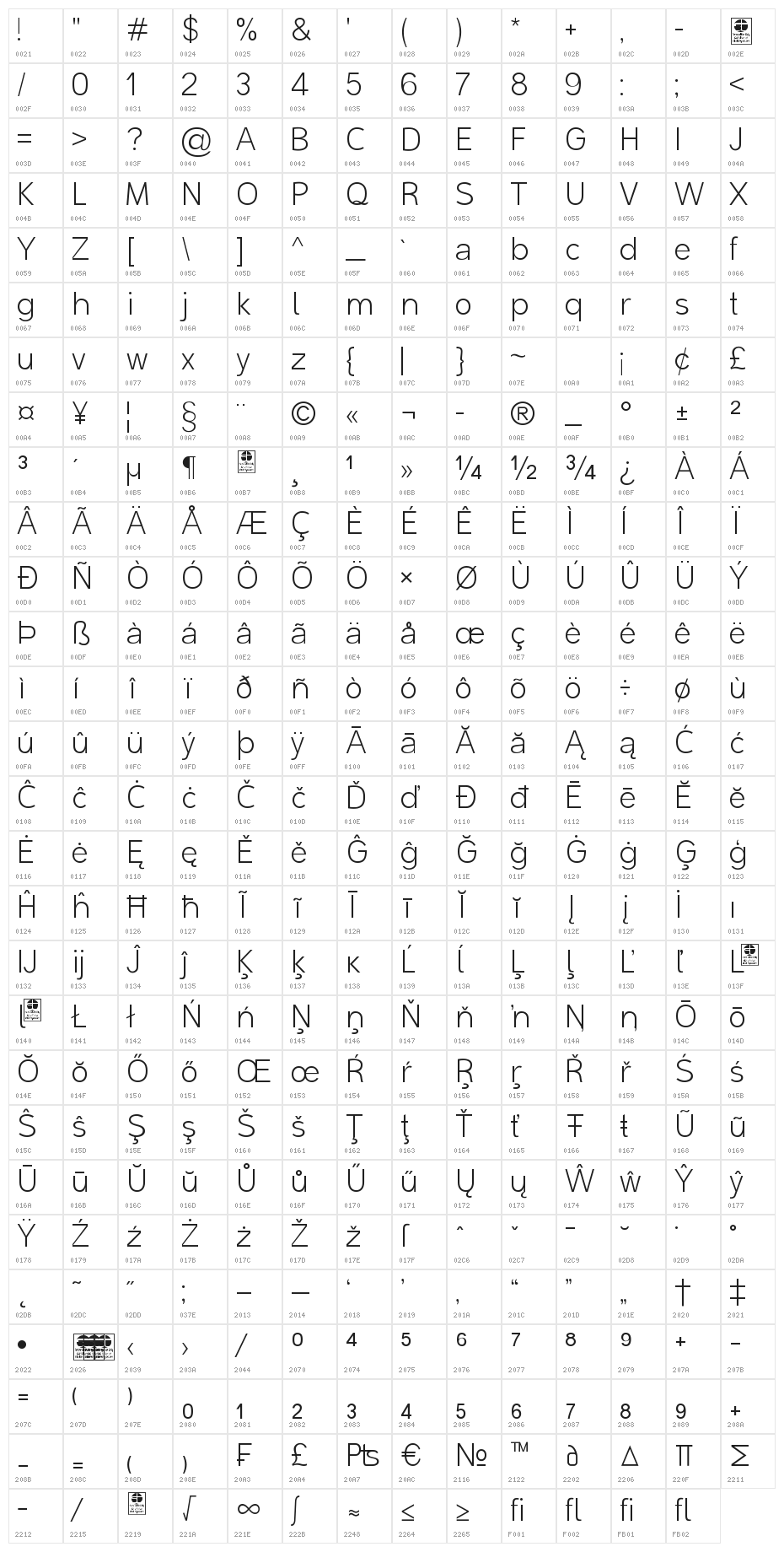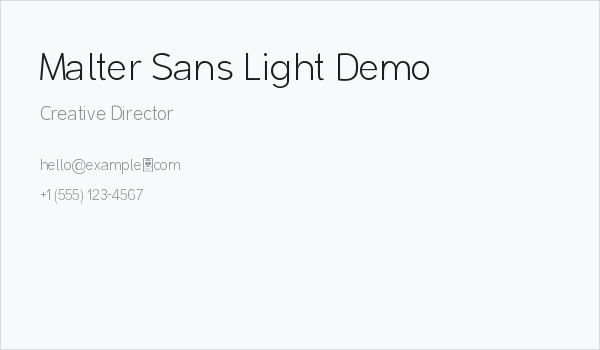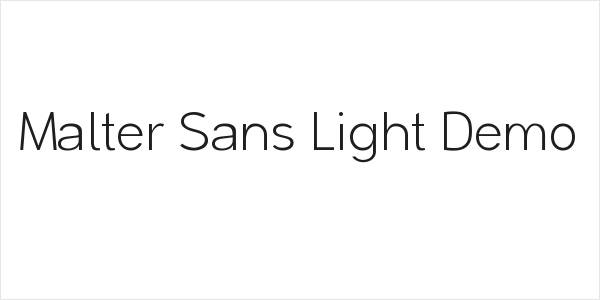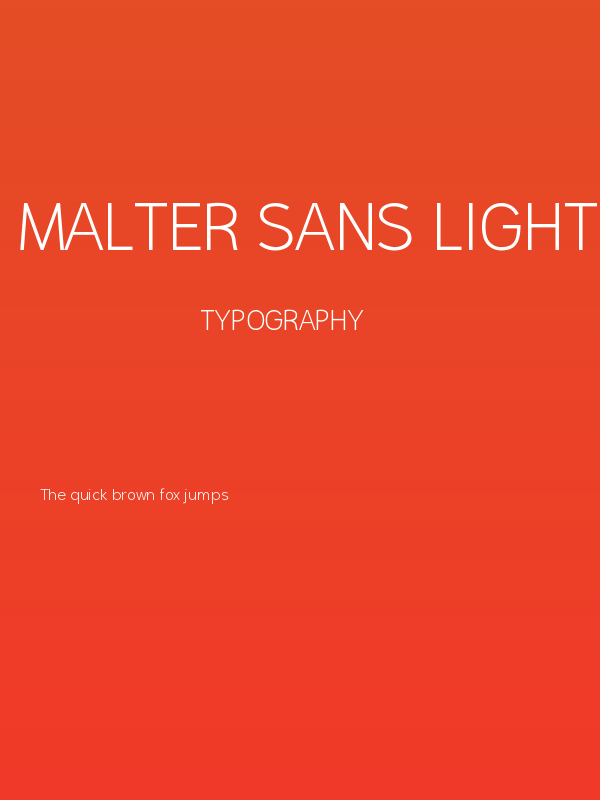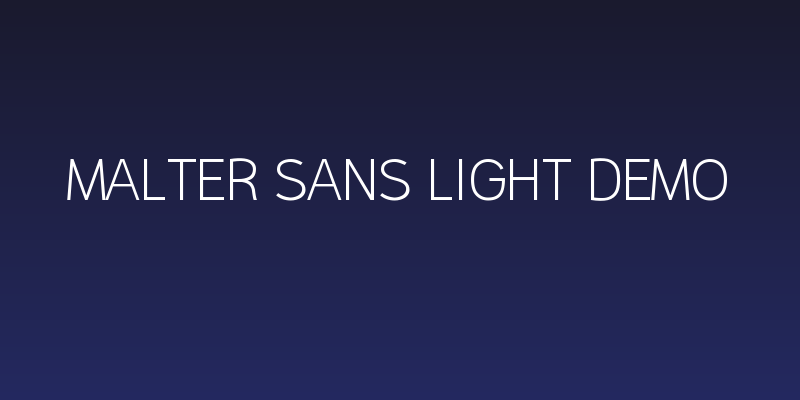
Malter Sans Light Demo Font
Malter Sans Light Demo Description
This font features a clean and modern sans-serif style with a light weight, making it ideal for minimalist designs. The characters are evenly spaced with a normal width, providing excellent readability. The uppercase and lowercase letters are well-proportioned, and the numerals are clear and distinct. The special characters are designed to match the overall aesthetic, ensuring consistency across different uses. Its simplicity and elegance make it versatile for various applications, from digital to print media.
| Proposed Projects | Ideal for web design, branding, corporate materials, and editorial layouts. |